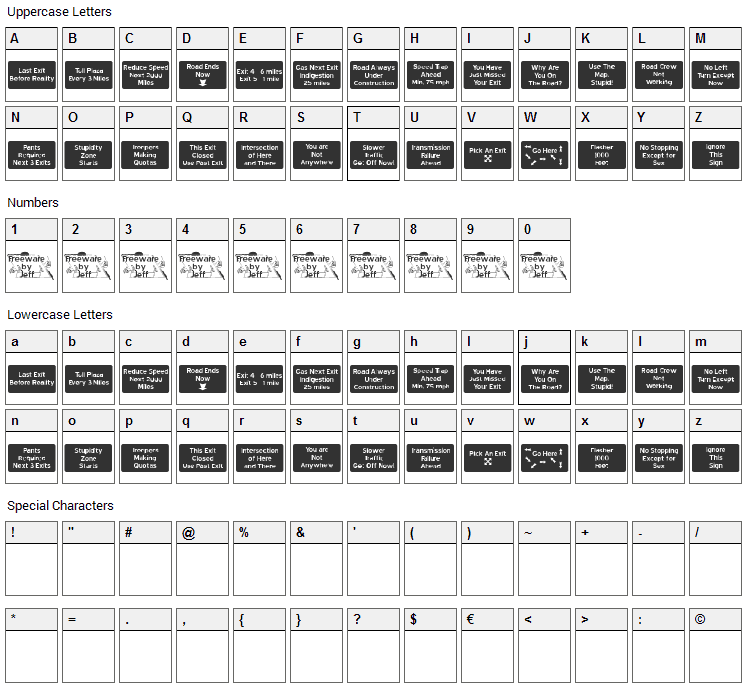
Road to Nowhere JL Font
Font Name:Road to Nowhere JL
Developer:Jeff Levine
Category:Dingbats > Various
Glyphs:27 glyphs / 62 characters
Highway signs are supposed to be instructional and informational, but "Road To Nowhere JL" sets this logic back a thousand years. These are road signs the way you wish they'd be. Buckle up, it's going to be a rough ride!
Road to Nowhere JL font contains 62 defined characters and 27 unique glyphs.